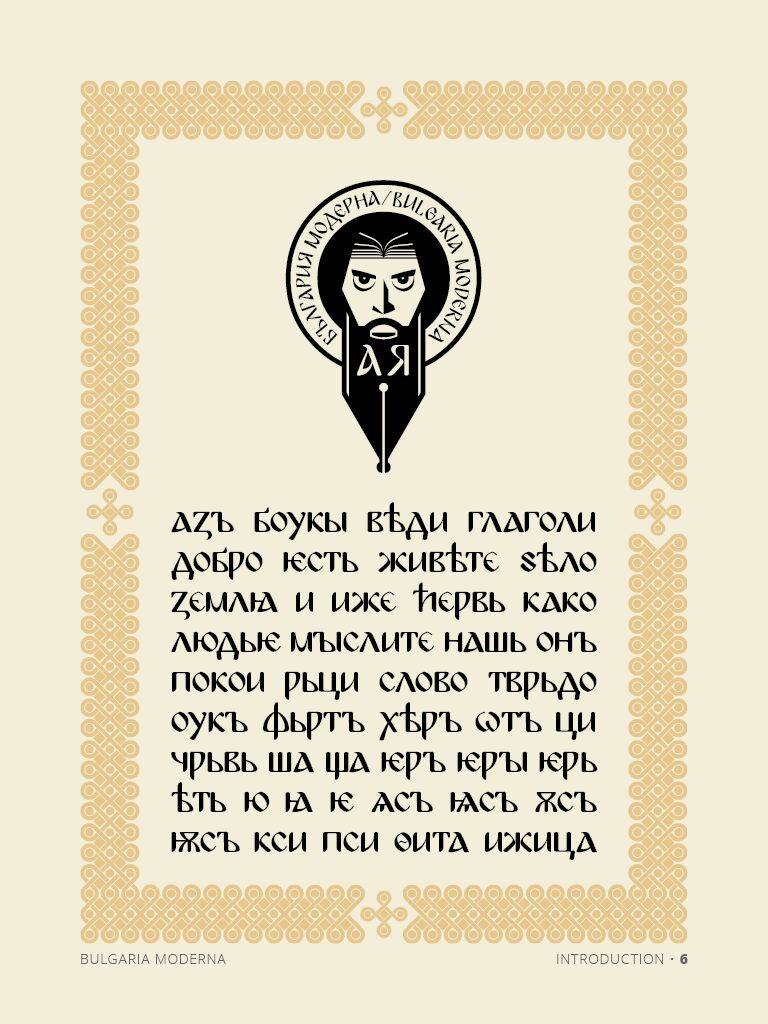
Bulgaria Moderna Pro by Yanko Tsvetkov is a free Gothic display font with an unusually fluid, stylized construction. Tall, slender strokes bend into broad curves and pointed joins, giving the letters a theatrical silhouette that recalls decorative European lettering without copying conventional blackletter forms.
A fashion label or arts venue could use it to build an eccentric, cultured identity. It also suits festival posters, album packaging, and editorial covers. The mix of sharp cuts and sweeping curves makes it particularly convincing for designs centered on cabaret, experimental music, or contemporary takes on old-world ornament.